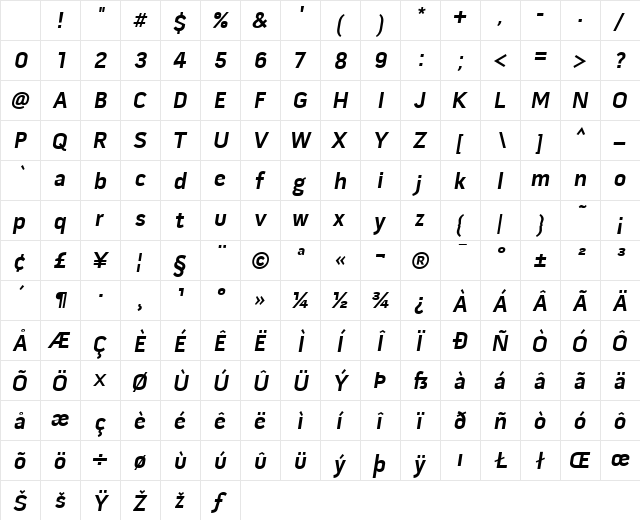
Complete Pill Gothic 600mg Bold Obq glyph index. Displaying only characters natively supported by Pill Gothic 600mg Bold Obq font.
Pill Gothic 600mg takes a clean, functional approach - its unadorned letterforms prioritise legibility and work reliably across screen and print environments. Its bold stroke weight gives it real presence on the page.
Font Pairing: Use Pill Gothic 600mg for headlines alongside a lighter-weight sans or serif for body copy to establish clear visual hierarchy.
Pro Tip: Use Pill Gothic 600mg for UI labels, navigation, and short-form body copy where clean legibility is the priority.